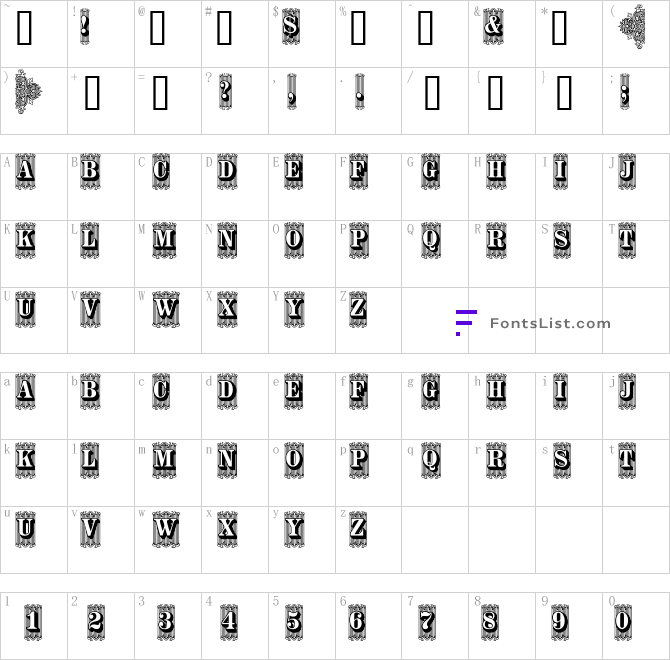
ARIDI81.ttf is a very beautiful artistic font, ARIDI81.ttf is widely used in the design and printing of various books and pictures,ARIDI81.ttf has a strong visual impact,ARIDI81.ttf is a commonly used font in newspapers, magazines and books, and is used in posters, e-commerce Poster design, store design, logo design, font design and other fields.ARIDI81.